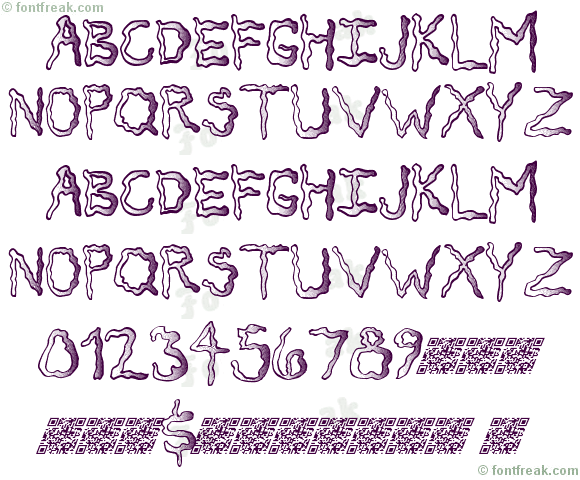
SecretTickleMB
About SecretTickleMB
SecretTickleMB by XEROGRAPHER FONTS is a playful display font that captures attention with its whimsical design. Characterized by its unique, irregular stroke weight, this font exudes a sense of fun and creativity, making it a perfect choice for projects that require a lighthearted touch. The letters feature a fluid, almost bubbly appearance, with a subtle contrast that adds depth and personality. Each character exhibits an organic feel, which is further enhanced by its slightly uneven spacing, contributing to a hand-crafted aesthetic.
Ideal for various creative applications, the SecretTickleMB font excels in settings such as children's book covers, playful branding, and vibrant event posters. It can also be effectively utilized in designs for social media graphics, where a bold statement is desired. Additionally, this font would shine in crafting dynamic website headers or engaging advertising campaigns aimed at a youthful audience. The versatility of SecretTickleMB allows it to appeal to graphic designers, content creators, and small business owners looking to inject personality into their visual communication.
What sets SecretTickleMB apart is its distinctive character and ability to evoke joy and spontaneity. Unlike standard fonts, its unconventional style invites curiosity and engages viewers, making it a memorable choice for any project. The SecretTickleMB font free download is a fantastic opportunity for creatives to explore this unique typeface without any financial commitment. Whether you're designing for print or digital media, this font is sure to leave a lasting impression, ensuring your work stands out in a crowded marketplace. Embrace the charm of SecretTickleMB and let your creativity flourish.